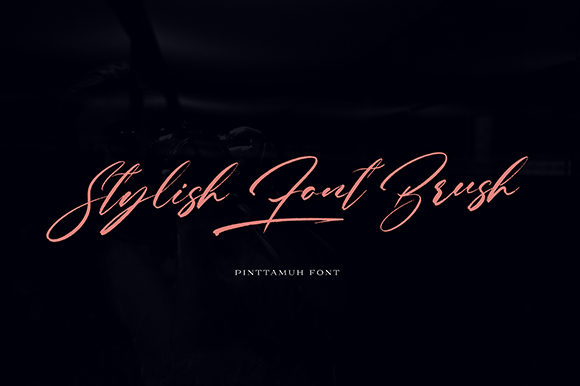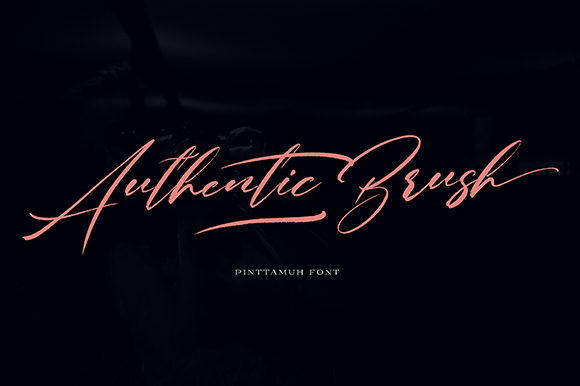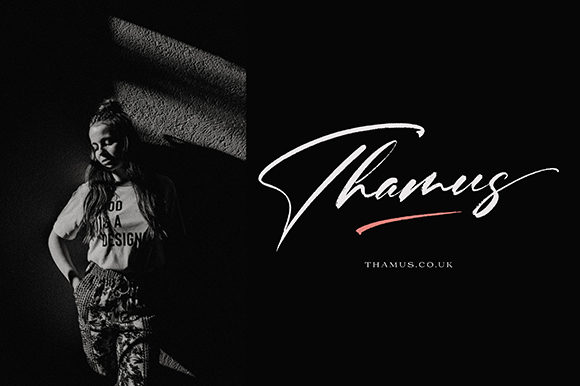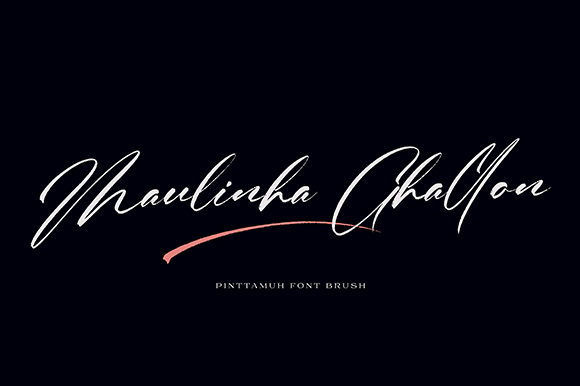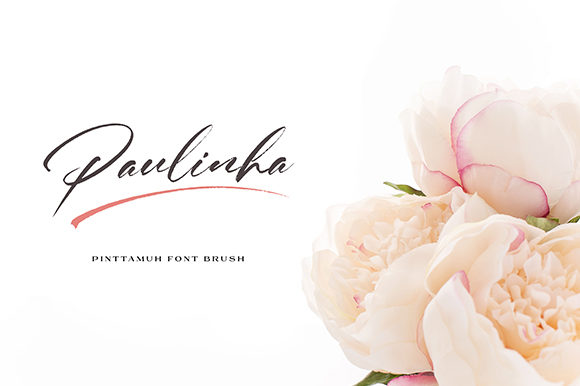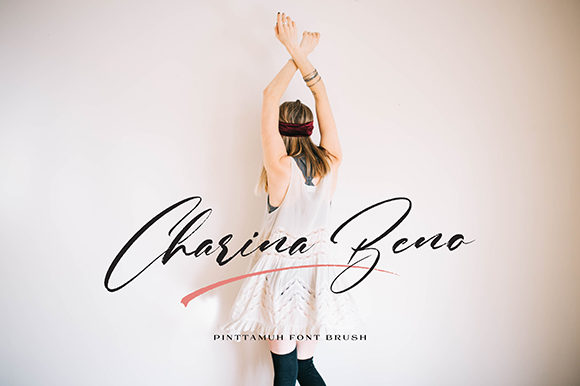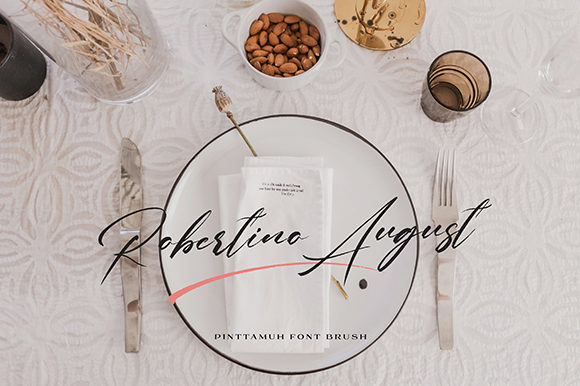
HomeScript FontsPinttamuh Font Script Fonts Pinttamuh Font FacebookXPinterestWhatsApp Pinttamuh Font Poster 2 Pinttamuh Font Poster 3 Pinttamuh Font Poster 4 Pinttamuh Font Poster 5 Pinttamuh Font Poster 6 Pinttamuh Font Poster 7 Pinttamuh Font Poster 8 About Pinttamuh Font Pinttamuh is a classic and sophisticated script with a unique style. Fall in love with its elegant look! DOWNLOAD ON CREATIVE FABRICAThis font is sold and delivered by Creative Fabrica. Font Canyon may earn a commission if you buy through this link. People also explored Teacher Font Rainbow Jelly Font Purefly Font Simple Handwriting Font Aokiji Font Paradiso Duo Font Rayya and Ayla Font Nersans Font Aariel Family Font 300 0 TagsPinttamuh Font Previous articleChristmas Gifts FontNext articlePaisley Script Font LEAVE A REPLY Cancel reply Comment: Please enter your comment! Name:* Please enter your name here Email:* You have entered an incorrect email address! Please enter your email address here Website: Save my name, email, and website in this browser for the next time I comment. Personal Use Free Sweety Blue Personal Use Free Read more about this font Blessed Font Personal Use Free Read more about this font Fribash Personal Use Free Read more about this font Loopina Personal Use Free Read more about this font BLOG Top 7 Google Fonts Alternatives for Faster and Privacy-Friendly Web Design (2025) Top 7 Google Fonts Alternatives for Faster and Privacy-Friendly Web Design (2025) When it comes to web typography, Google Fonts has long been the go-to... To increase your work productivity, choose the most readable fonts. Transform Your Website: Elevate Your Typography with 7 Best Web Font Generators Using Fonts in Digital Marketing: Tips to Strengthen Your Brand Identity